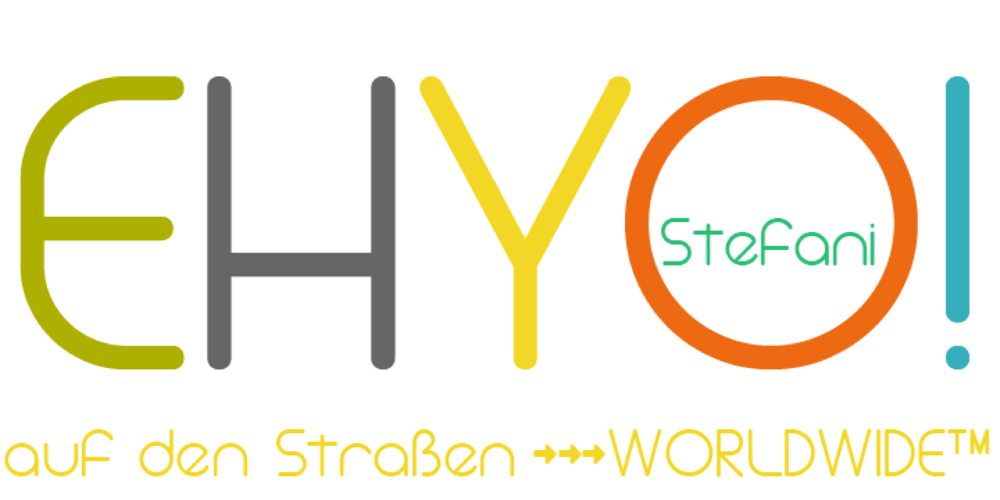
Stefani Font Family was designed by Luke William Turvey and published by Okaycat. Stefani contains 4 styles and family package options. Stefani EHYO was designed ultimately with pure simplicity in mind, to carry an inviting, friendly style. The result is an ultra clean look with versatility: useful for either full bodies of text or for a nice headliner. The simplified smooth forms are highly legible and carefully well-matched, so can even be used over a busy background or at very small point settings. Stefani is extended, containing the full West European diacritics & a full set of ligatures, making it suitable for multilingual environments and publications. Choose Stefani for any application where you want solid readable text, any time you want a pleasant and clean feel to your presentation.